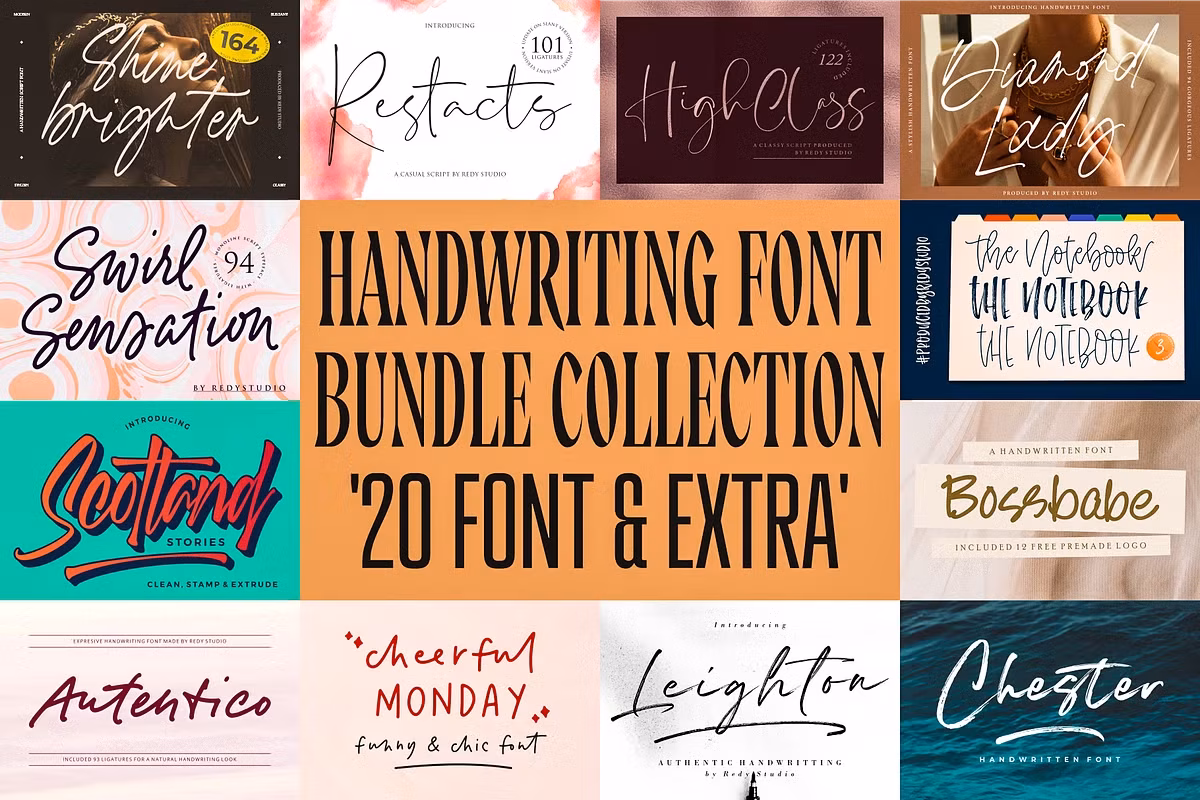
Handwriting Font Bundle Collection Free Download
Handwriting Font Bundle Collection Free Download is a carefully curated set of handwritten fonts designed to add a personal, authentic touch to your designs. With a variety of script and casual fonts included, this collection is perfect for creating unique logos, invitations, branding materials, social media content, and more. Whether you're working on a wedding invitation, crafting a brand identity, or designing creative content, Handwriting Font Bundle Collection Free Download offers versatility and charm. Experiment with these fonts in personal projects before purchasing a commercial license and bring warmth and personality to your designs with this beautiful, handwritten font collection.